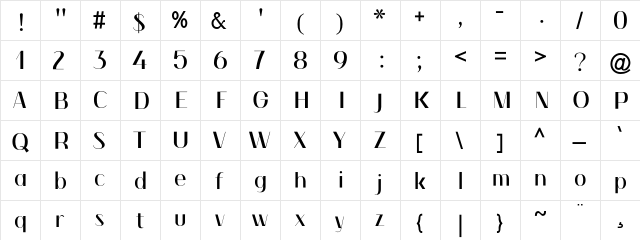
Winter_Sans normal
Design Context for Winter_Sans Typeface
Winter_Sans offers clean, dependable letterforms without strong stylistic allegiance, making it a practical choice for designers who need flexibility.
Pro Tip: Use Winter_Sans in both headline and body roles to test its range before committing to a single application.